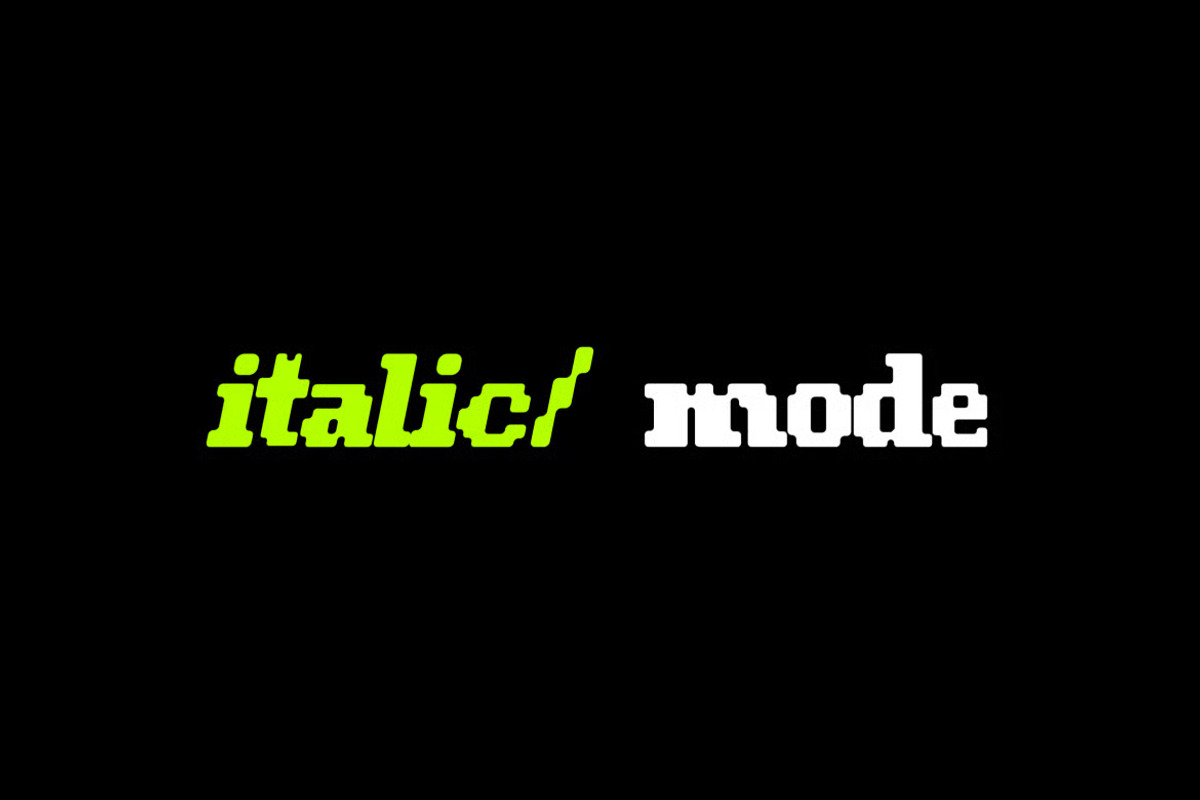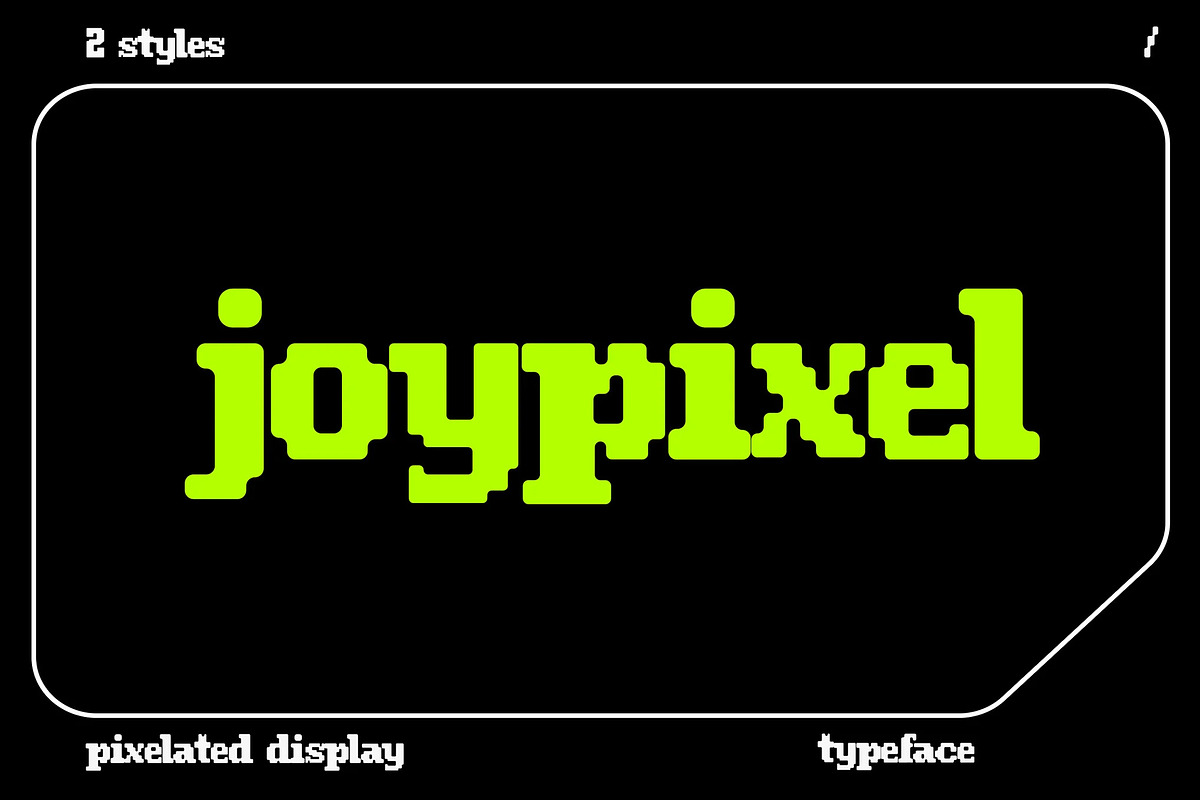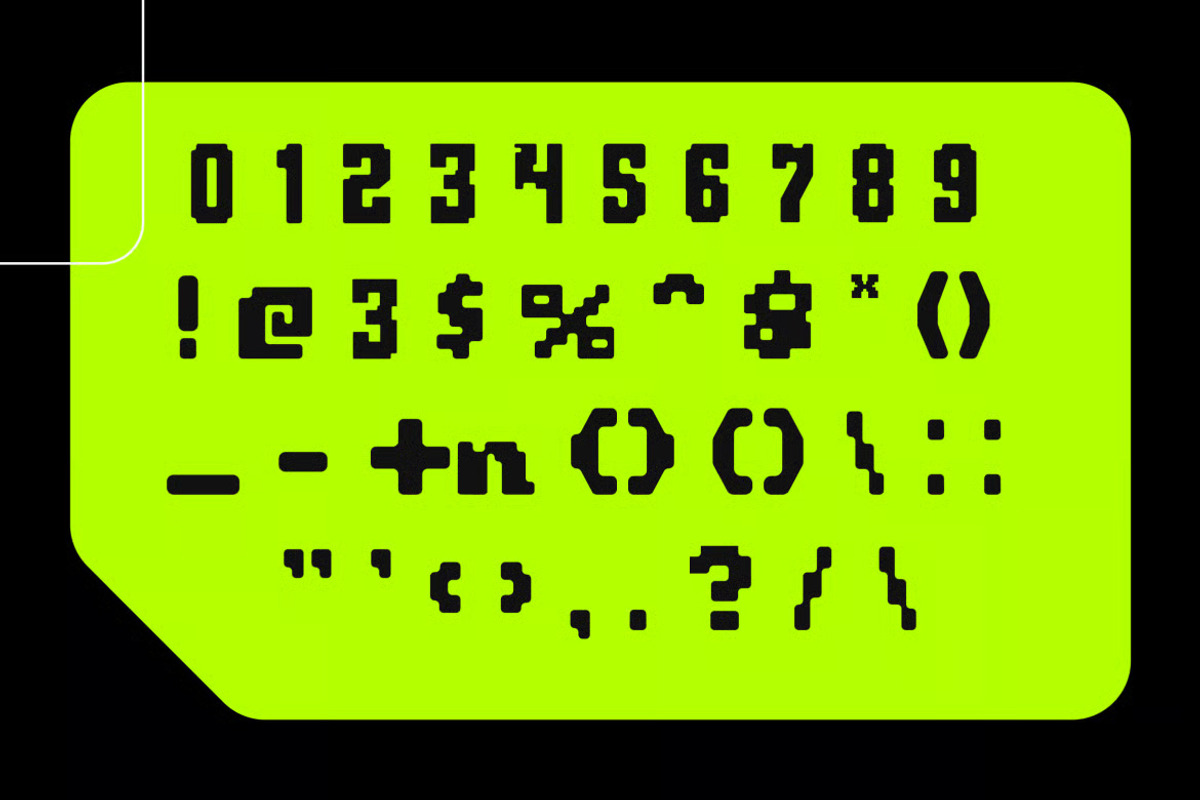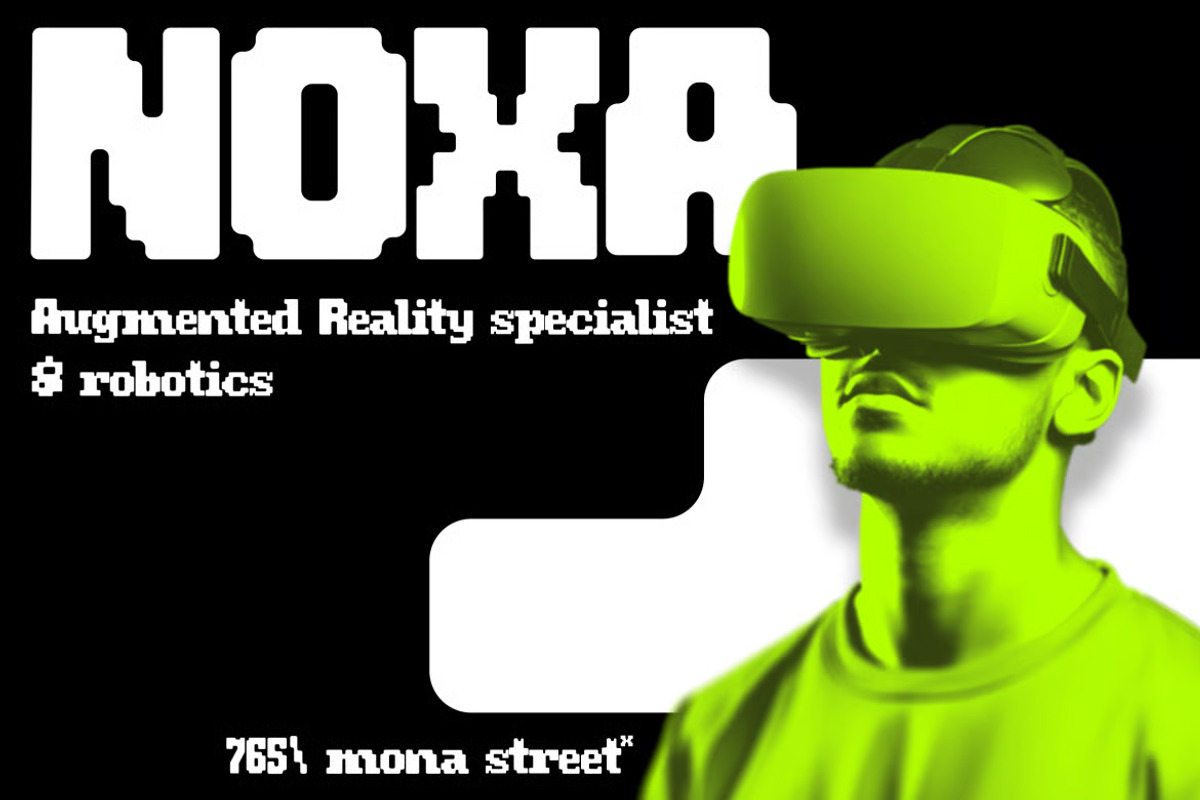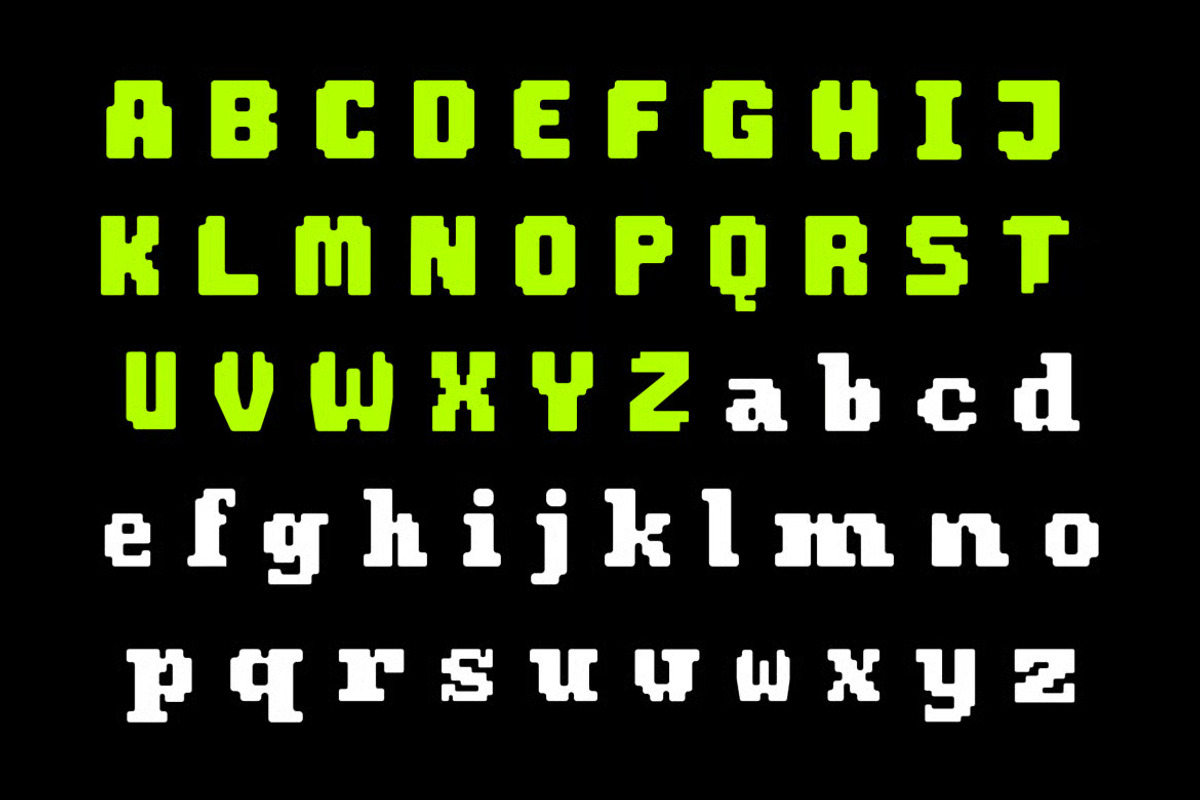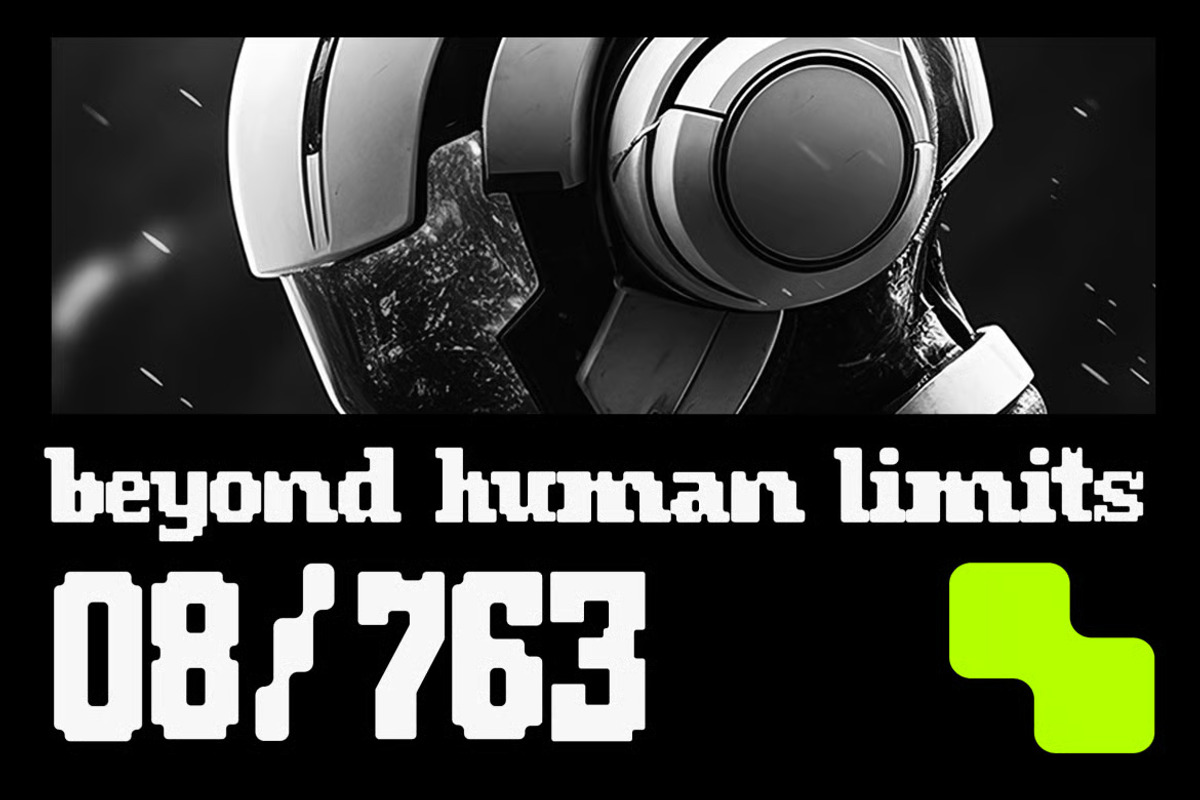
Joypixel - Pixelated Display Font
Joypixel is a bold pixel-style display font that brings retro gaming charm into the digital age. Built on a chunky, blocky structure with crisp pixelated edges, it captures the nostalgic energy of classic 8-bit games while staying sharp enough for modern design work. Every letterform is constructed with precision, giving the typeface a playful yet structured personality that feels both nostalgic and fresh.
Joypixel comes in two styles — Regular and Italic — giving you flexibility to mix bold, upright pixel charm with a touch of dynamic movement. The italic variant adds energy and emphasis, making it easy to create contrast within a single design.
With its bold pixelated construction, Joypixel brings instant retro appeal to any tech-inspired project, blending arcade-era nostalgia with a clean, contemporary edge.
2 Styles: Regular & Italic